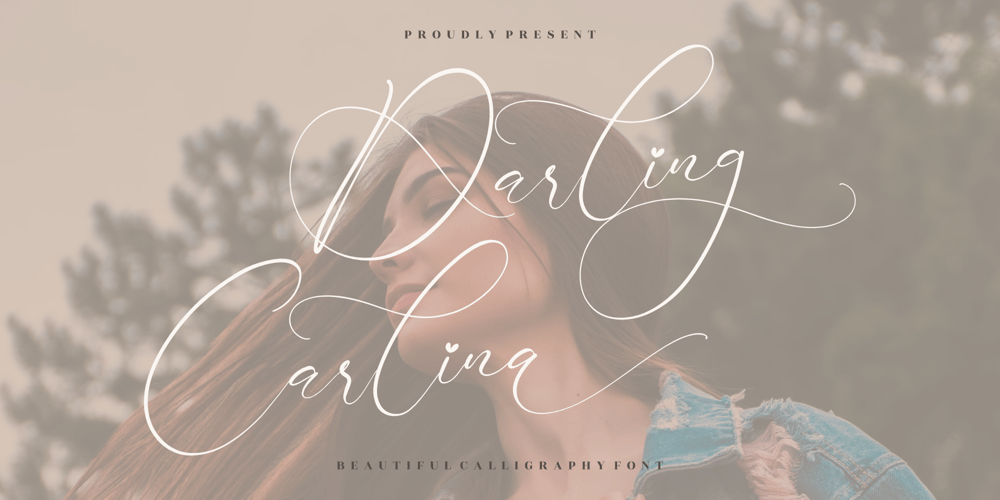
Darling Carlina
Darling Carlina font
Darling Carlina Font Family was designed by Heru Utama Putra and published by Letterena Studios. Darling Carlina contains 2 styles and family package options. Darling Carlina is a beautiful calligraphy font suitable for any projects such as logos, branding projects, homeware designs, product packaging, mugs, quotes, posters, shopping bags, t-shirts, book covers, name cards, invitation cards, and greeting cards. It’s also a perfect fit for labels, photography, watermark, special events, and all your other lovely projects that need a beautiful script taste.